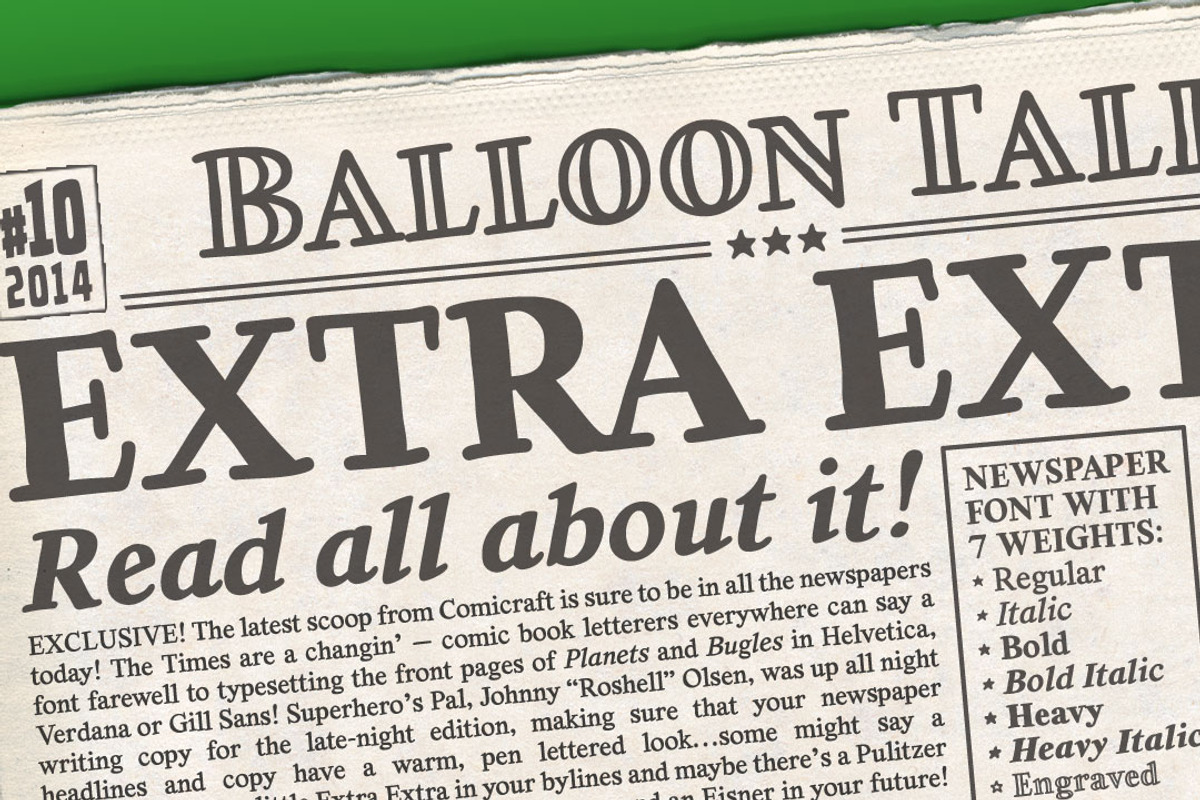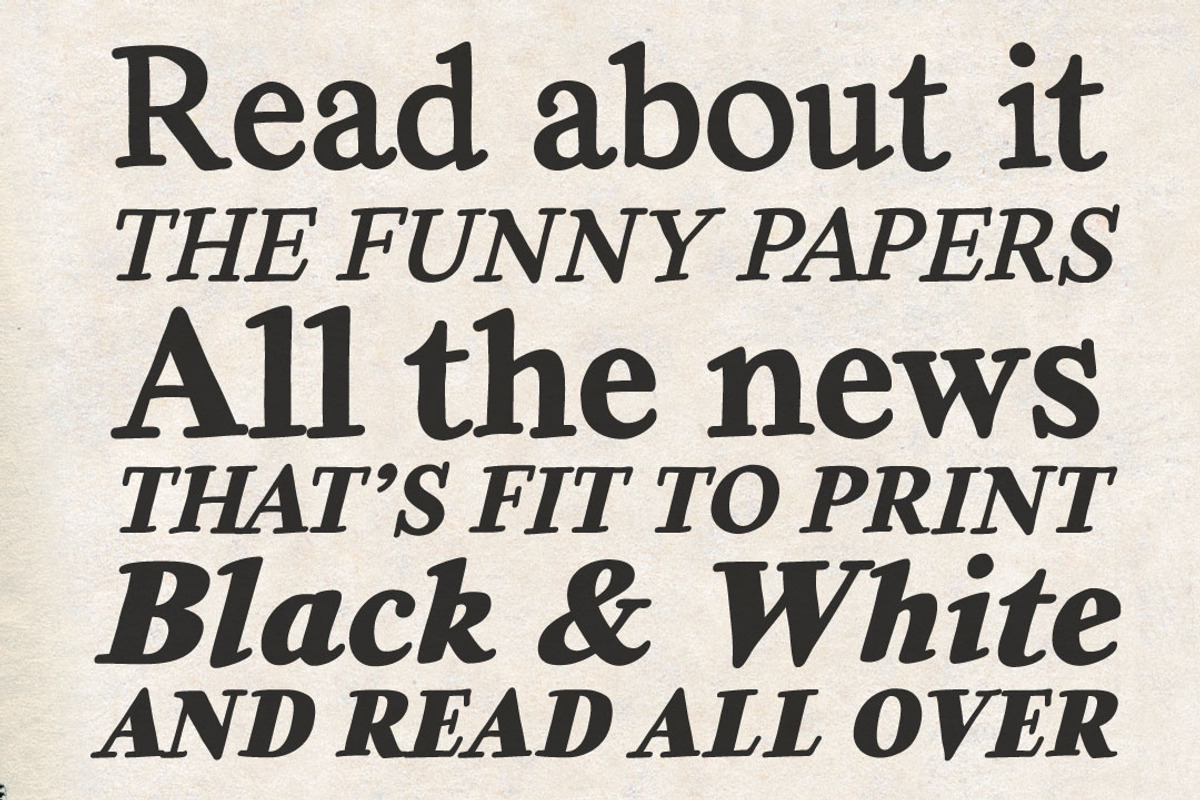
Extra Extra
Extra Extra by Comicraft Fonts is a font selected for branding, posters, packaging, typography.
Why Extra Extra is worth a look
Extra Extra by Comicraft Fonts fits naturally into Branding, posters, packaging, typography.